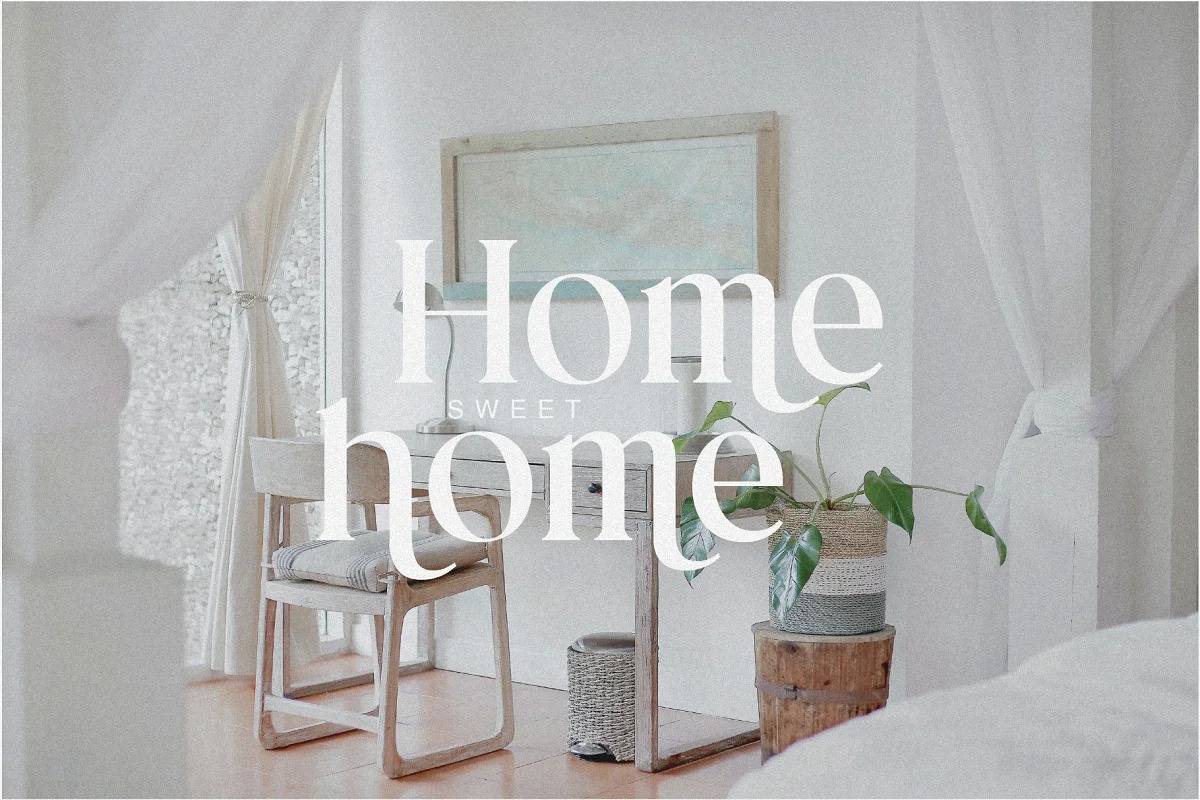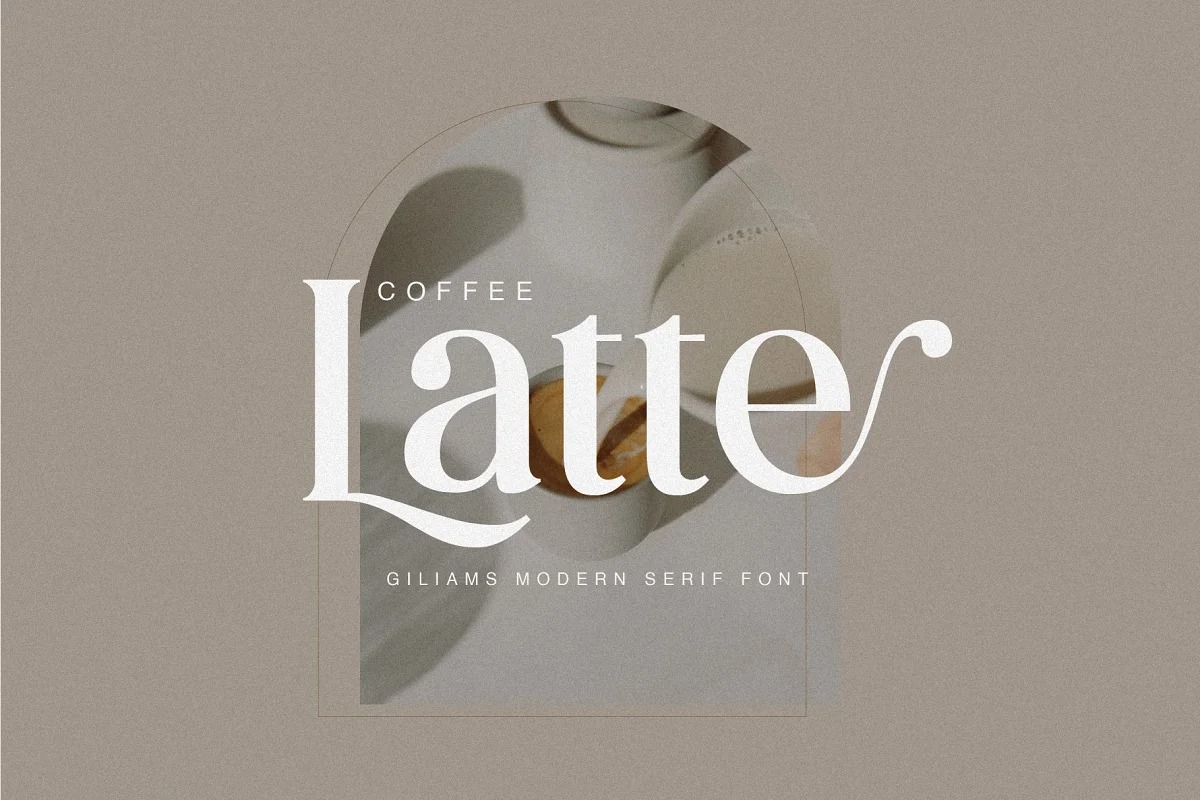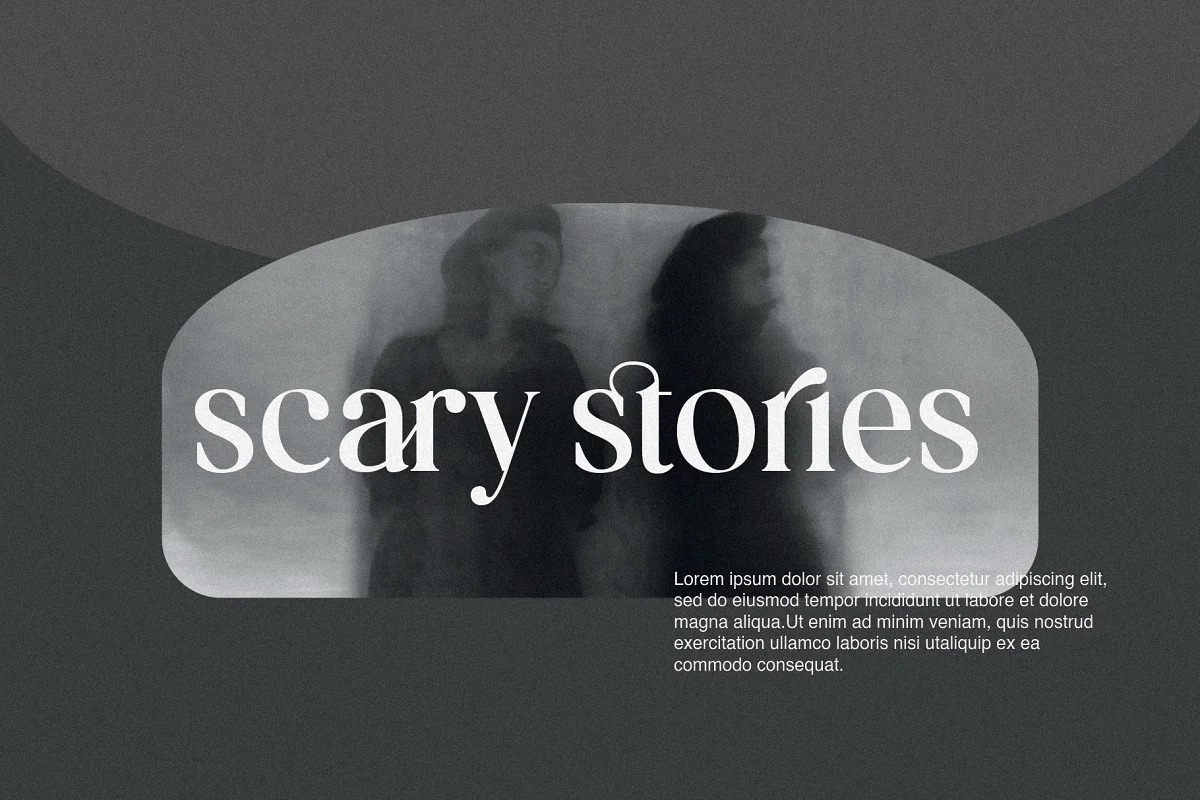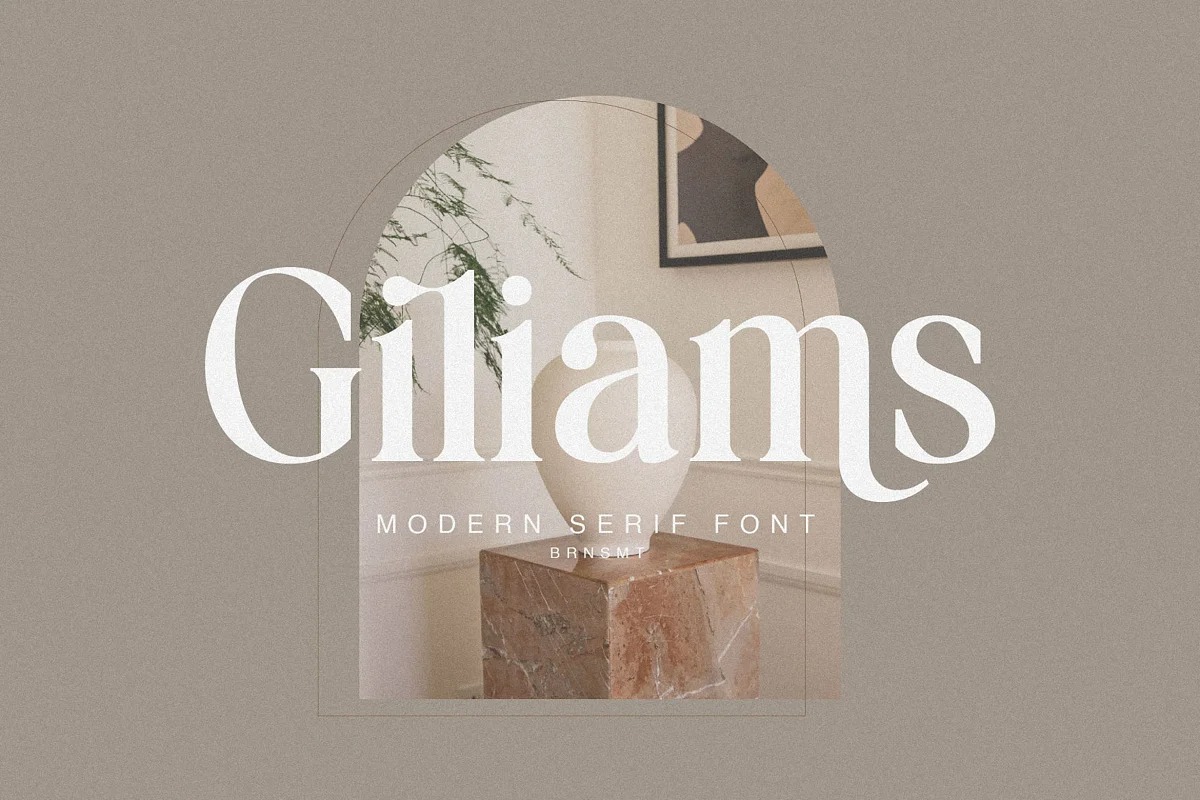
Giliams Font
Giliams Serif Font
It’s a stylish modern serif typeface manufactured by BrandSemut. This typeface has can be used for modern theme or vintage looks with ligatures & alternates. Very suitable for logo, headline, tittle, and the other various formal forms such as invitations, labels, logos, magazines, books, greeting / wedding cards, packaging, fashion, make up, stationery, novels, labels or any type of advertising purpose.